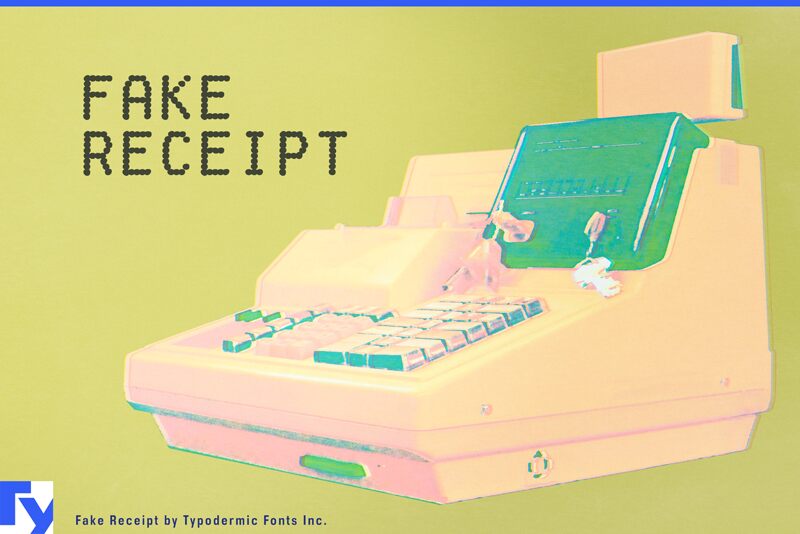
FakeReceipt-Regular
FakeReceipt by Ray Larabie of Typodermic Fonts Inc. is a free dotted display font built from evenly spaced circular marks. Its rounded construction gives the capitals a playful, mechanical look.
Brands with a digital, novelty, or maker focus can use it for logos and packaging that echoes dot-matrix printing. The same bead-like lettering suits game graphics, event posters, and merchandise with a lighthearted technological theme. It is most convincing on packaging, where the dots can become a repeatable graphic motif.
Fake Receipt was created in 1999 and resembles print from a typical late-20th-century cash register. It supports additional languages and includes fractions and numeric ordinals. Its vertical metrics have been improved for web performance.